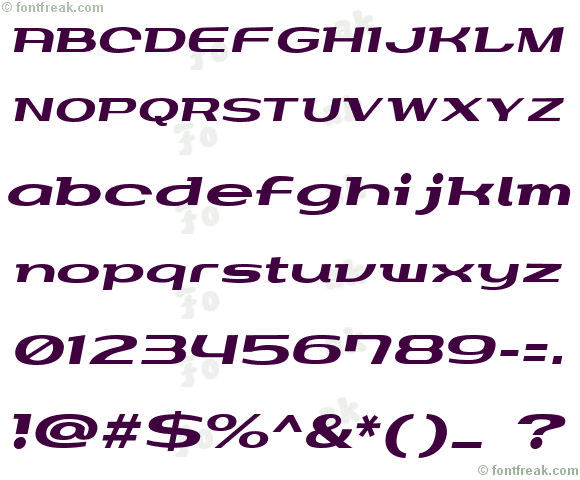
GauFontLoveRocketNeo
About GauFontLoveRocketNeo
GauFontLoveRocketNeo, designed by GRAPHIC ARTS UNIT, is a captivating display font that embodies a unique blend of modernity and creativity. As a decorative typeface, it features a bold stroke weight with a consistent thickness that lends a strong visual presence to any project. The font presents a dynamic contrast with its slightly elongated letters, creating an energetic feel that can capture attention while maintaining readability. The spacing between characters is thoughtfully arranged, ensuring clarity without sacrificing style.
This versatile font is particularly well-suited for a variety of design applications. It shines in wedding invitations, where its playful yet sophisticated aesthetic can set the perfect tone for romance. Additionally, GauFontLoveRocketNeo is an excellent choice for movie posters, giving a contemporary edge that draws viewers in. Restaurant menus can also benefit from its distinctive flair, making dishes stand out with an inviting presentation. Furthermore, content creators will find this font ideal for social media graphics, as it enhances visual storytelling and attracts engagement.